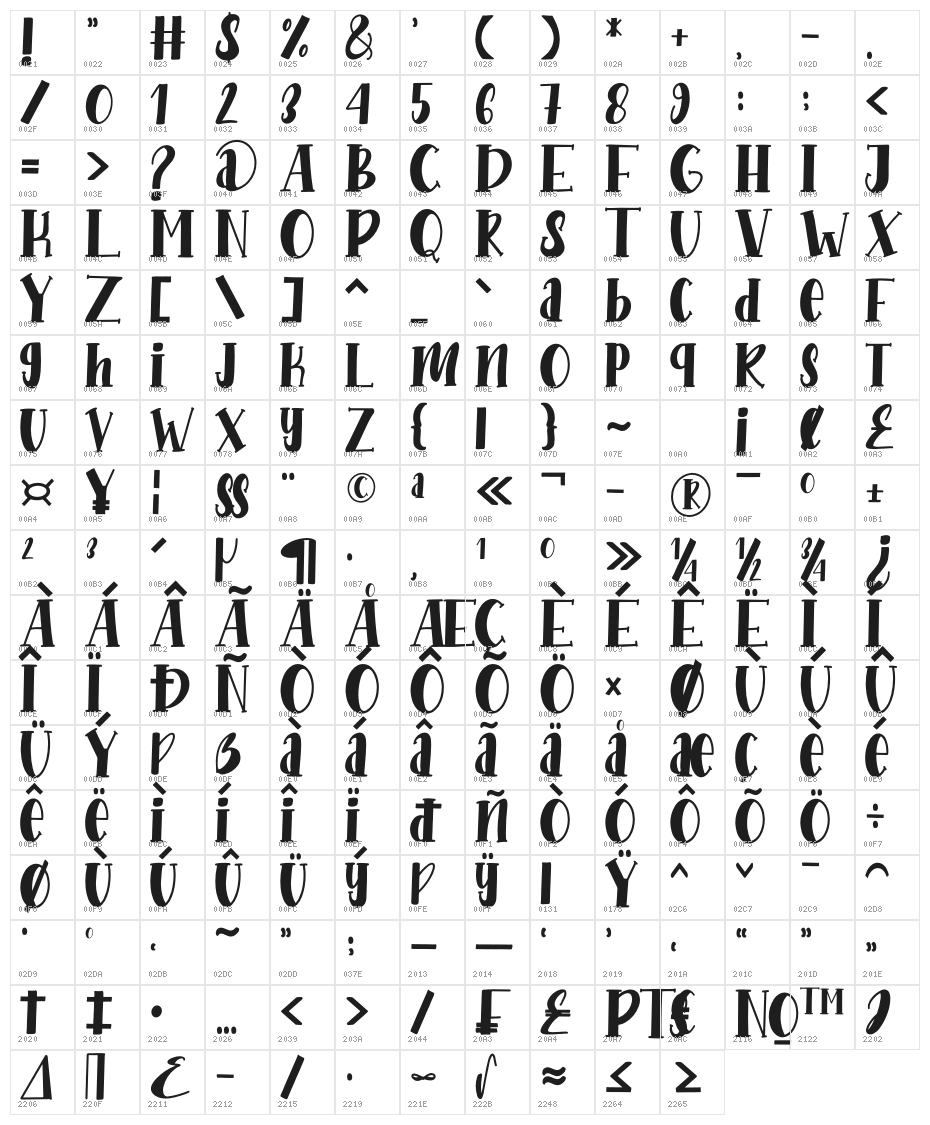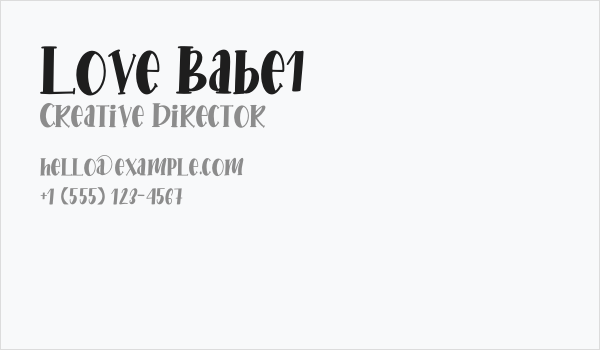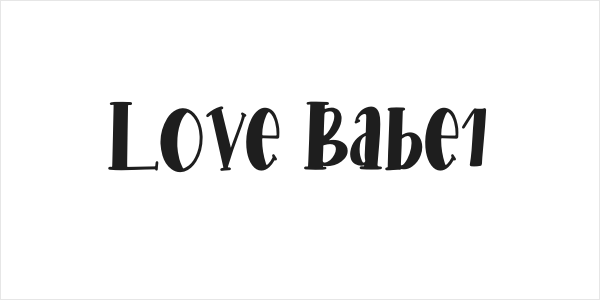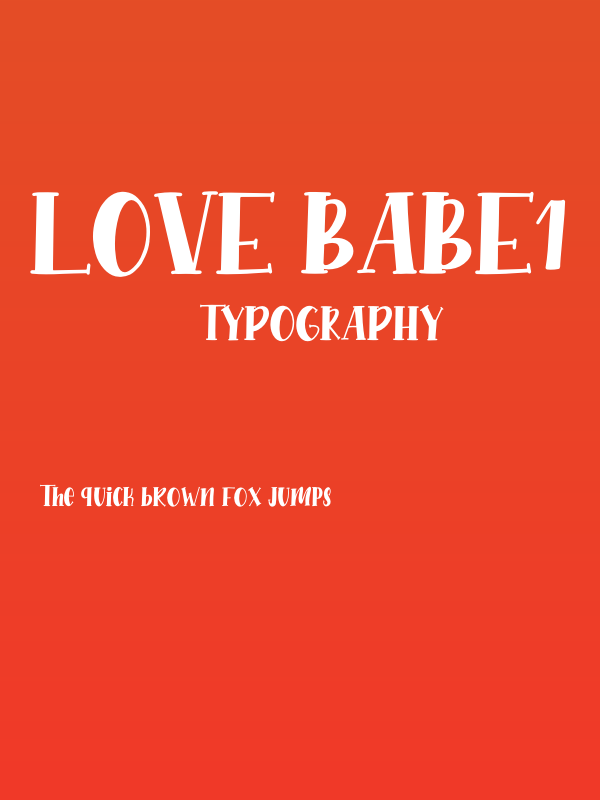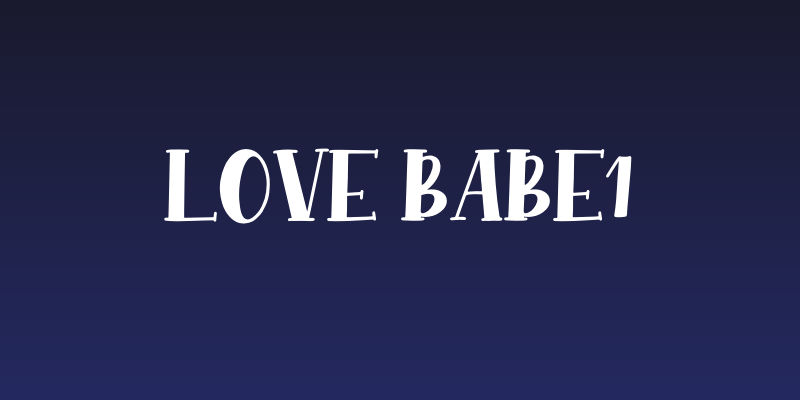
Love Babe1 Font
Love Babe1 Description
This font features a playful and bold style, characterized by its thick strokes and whimsical curves. The uppercase letters are distinct with a mix of straight and curved lines, giving a dynamic and energetic feel. The lowercase letters maintain this playful nature, with some characters having unique flourishes that add to the overall charm. Numbers are bold and easily readable, while special characters are creatively designed to match the font's lively aesthetic. This font is perfect for projects that require a fun and engaging look.
Overall StylePlayful, Energetic, Whimsical
Proposed ProjectsIdeal for children's books, playful branding, greeting cards, and posters.